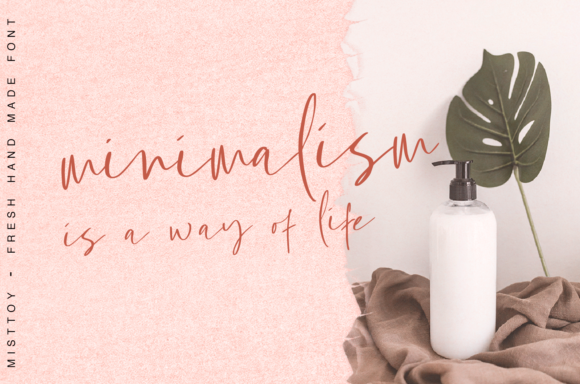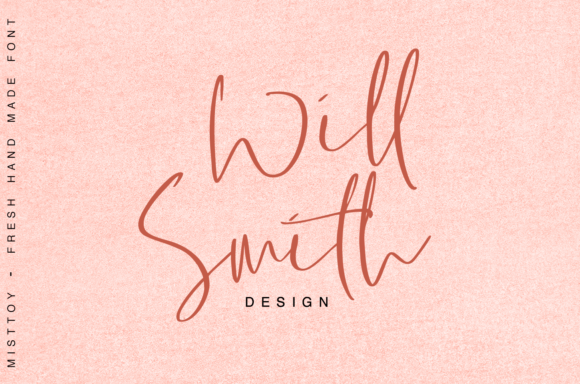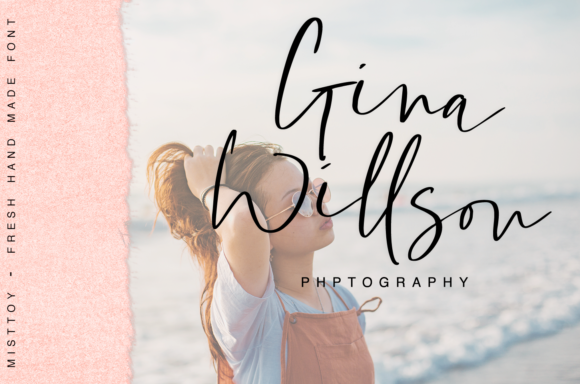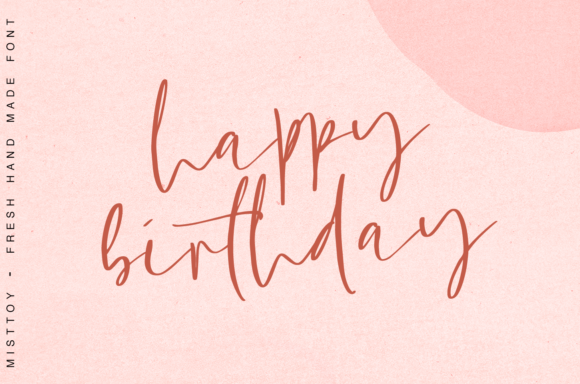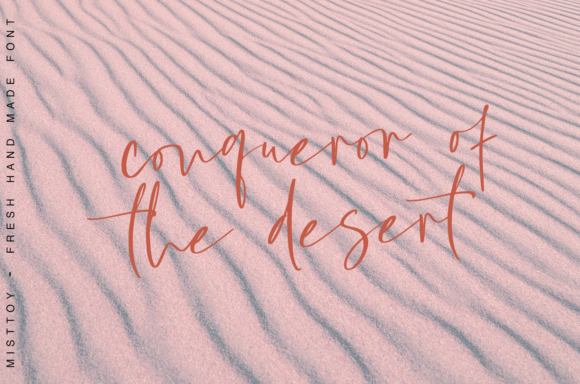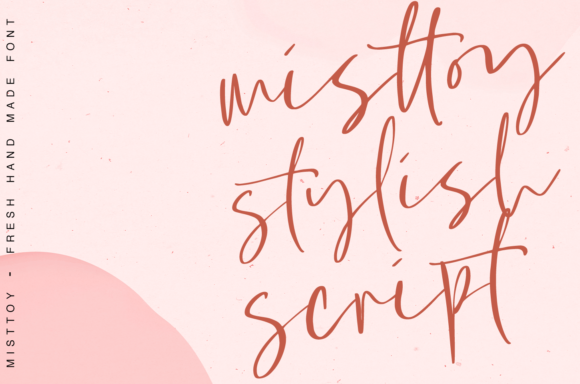
Introduction to Misttoy Font
As a designer, there’s nothing quite like the thrill of stumbling upon a new, high-quality font that sparks inspiration for your next creative project. For me, that moment came when I discovered the enchanting Misttoy Font. Its delicate, handwritten style has a way of elevating even the simplest designs into something truly special.
With its well-rounded letters and versatile aesthetic, the Misttoy Font is a valuable resource for any designer looking to add a touch of elegance to their work. Whether you’re working on a project with a transparent background or need a font that can stand on its own, Misttoy is sure to impress. And the best part? It’s available for a free download, making it an accessible design resource for creatives of all levels.
Key Features of Misttoy Font
- High-quality design resource ideal for creative projects, offering a unique and elegant aesthetic.
- Designed to be highly legible, making it suitable for a variety of applications, from body text to headings.
- Includes a range of weights and styles, allowing designers to customize the font to suit their specific creative project needs.
Honest Review: Misttoy Font
As a designer, I’m always on the lookout for high-quality design resources that can elevate my creative projects. Recently, I had the chance to work with the Misttoy Font, and I’m excited to share my honest review with you.
- Unique and elegant design: Misttoy Font offers a beautiful, hand-drawn feel that’s perfect for creative projects that require a touch of sophistication.
- Transparent background: This feature makes it easy to work with the font, as it allows for seamless integration with various backgrounds.
- Limited character set: While the font is beautiful, it’s limited to a smaller character set, which may not be ideal for complex text-based projects.
- Not suitable for body text: Due to its unique design, Misttoy Font is best used for headings and titles rather than body text.
Overall, I’m impressed with the Misttoy Font, and I think it’s a great addition to any designer’s toolkit. While it may have some limitations, its unique design and transparent background make it a valuable resource for creative projects.
How to Use Misttoy Font
The Misttoy Font is a high-quality design resource perfect for any creative project. Its unique and stylish design makes it a popular choice among designers and artists.
Tips for Getting the Most Out of Misttoy Font
For the best results, use the Misttoy Font in conjunction with other high-quality design resources. Experiment with different font sizes, colors, and styles to create unique and eye-catching designs.
The Misttoy Font is commonly used in graphic design, digital art, and web design. It’s perfect for creating social media graphics, logos, and other visual elements that require a touch of elegance and sophistication.